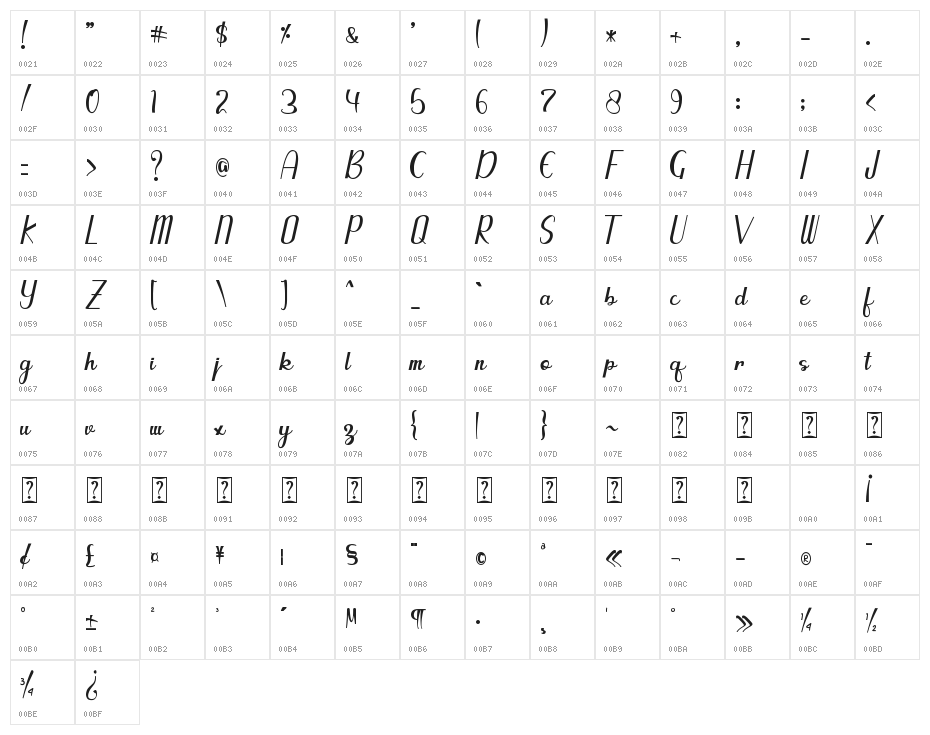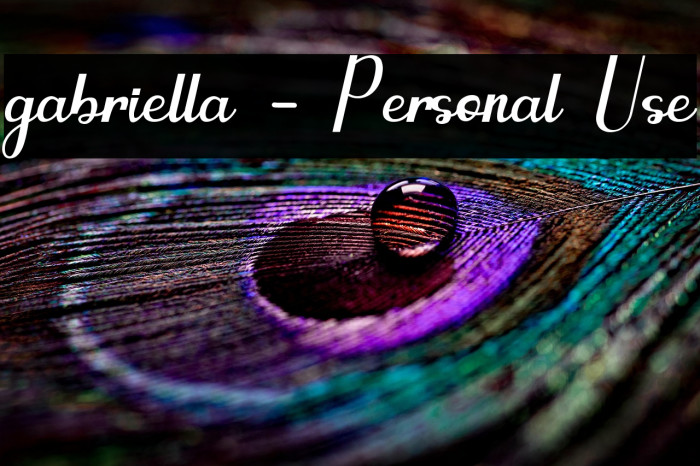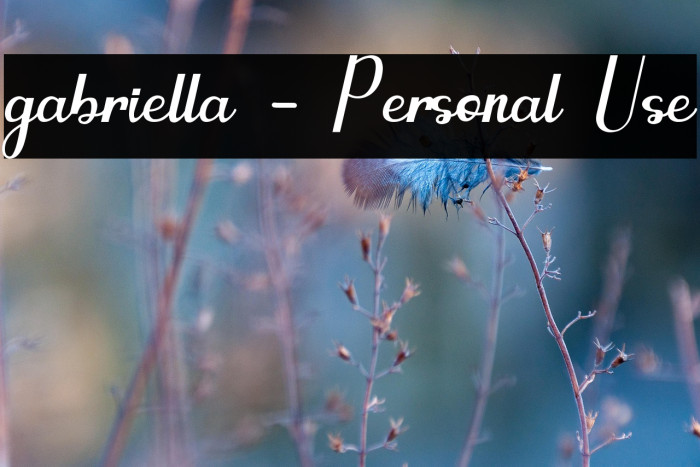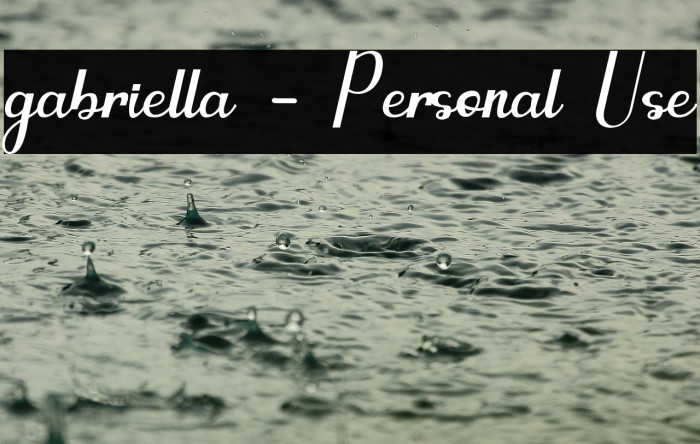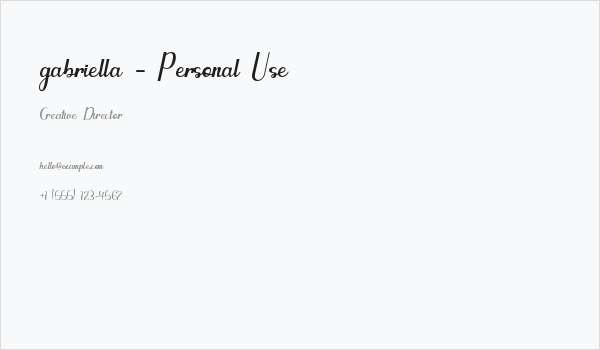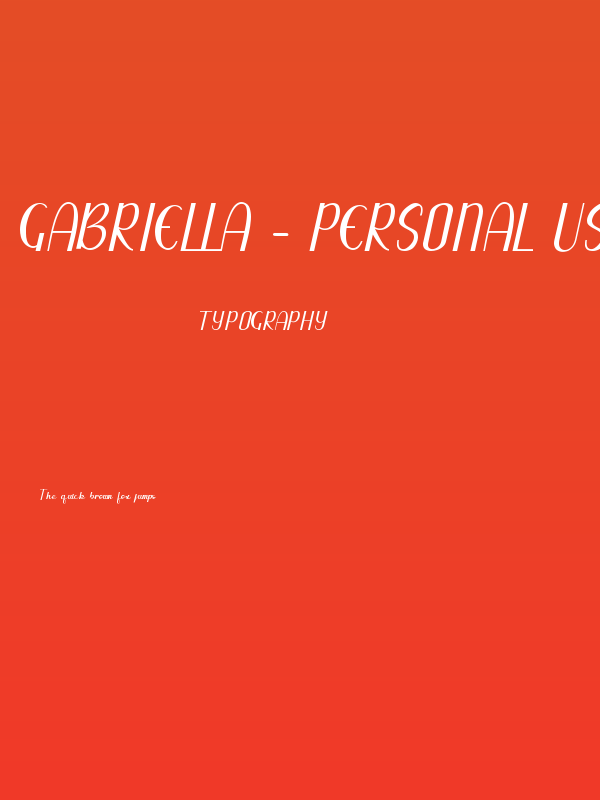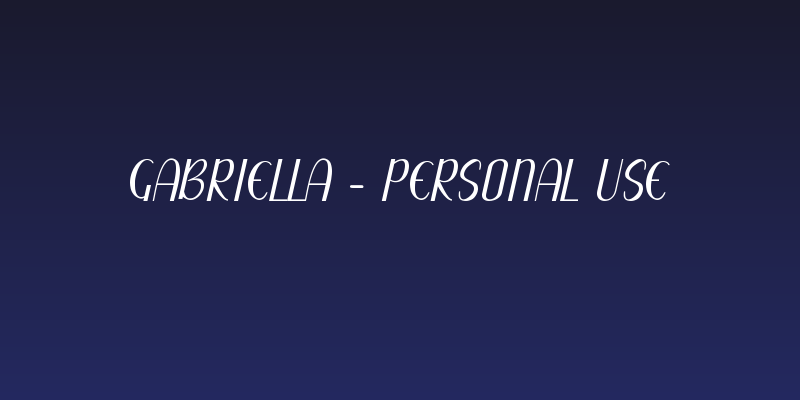
gabriella - Personal Use Font
gabriella - Personal Use Description
This font features a unique blend of elegance and modernity, characterized by its flowing, cursive lowercase letters and sleek, angular uppercase letters. The uppercase letters exhibit a slight slant, adding a dynamic and sophisticated touch, while the lowercase letters are more fluid and connected, reminiscent of classic script styles. The numerals are consistent with the overall style, maintaining a balance between the angular and the cursive elements. Special characters are designed with the same attention to detail, ensuring a cohesive look across all glyphs. This font is versatile, suitable for a variety of design projects that require a touch of elegance and modern flair.
| Overall Style | Modern, Elegant |
| Proposed Projects | Ideal for wedding invitations, branding, logo design, and elegant stationery. |